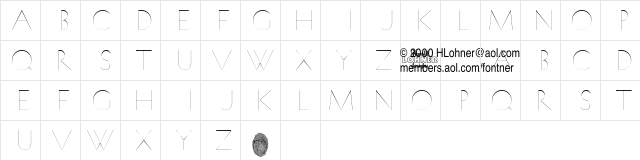
Koch Quadrat Inline Regular
| Copyright | Koch Quadrat computer font 00 Harold Lohner " HLohner "http://members.aol.com/fontner Based on the letter constructions of Rudolf Koch (1876 1934). Also available: separate fonts of the outlines, inlines, guidelines, and fill. |
Design Context for Koch Quadrat Inline Typeface
Koch Quadrat Inline is built around its visual character rather than neutral utility — its distinctive forms are designed to make an impression at display sizes.